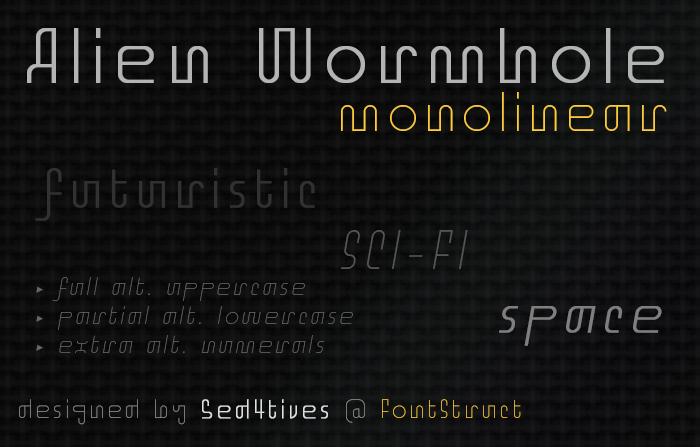
• ALIEN WORMHOLE - Monolinear Sci-Fi-inspired 'worm' typeface.
Most well known worm-type design probably is NASA's retired 'worm' logo (used from 1975 till 1992).
A sophisticated modernist rendering of the letters (N-A-S-A), done in a bold style letterform.
That being said, I should mention that this FontStruction wasn't "inspired by" or "based on" the original NASA logo though.
Small grid attempt at making sort of a experimental futuristic 'worm'-type design.
The letterforms for the most part are build from simplified basic geometry (rectangles/circular) except for a small number of symbols and punctuation that have diagonals.
It's experimental appearance is defined by the strikingly quirky counters that are awkwardly jutting out of the stems. To further boost it's awkwardness the letterforms have irregular width.
There is a full set of uppercase and partial lowercase glyph alternatives located in "Half Width Full Width" Unicode block to add slight stylistic variations.
Talking about this work: two typefaces seem to coexist in one (one more vertical and traditional and the other more innovative -a, b, d, h, m, etc-). But interestingly, they work together in their own peculiar way, producing a much more readable result than might be expected at first glance. Unfortunately, the glyphs that seem unrecognizable to me in their quirky design are K, k, and R, all IMHO. That must be the alien effect. ?
“ Unfortunately, the glyphs that seem unrecognizable to me in their quirky design are K, k, and R, all IMHO. That must be the alien effect.  ”
Yup, this work seems to be having an alien viral infection, symptoms are intense and fiercely disabling.
Their mothership's AI has been jailbreaking into our mainframe and replaced the system's default typeface with one of their own special 'character recognition-' compatible typefaces for easy auto-translation of latin based languages into their own native language.
So perhaps this is what a latin based type design possibly looks like if it was designed to be intelligible and  more user-friendly for extraterrestrials.
But what do we actually truly know? Last time I checked I was pretty sure I wasn't an alien, and for all we know we could be looking right at it and thinking nothing seem to look out of the ordinary. ?
I think for experimental styles such as this it shouldn't be all too much of an issue, since it wasn't initially aimed at providing best possible ergonomic performance. But formost with stylistic appearance in mind. ?
I wonder if a variable font of all styles, when finished, will be possible?
@BMW: Not solely with FontStruct, this requires the use of an external type-tool. But that is certainly something I am working towards for my multi-style type families.
A thing you got to keep in mind is that this requires some very specific parameters that need to be setup right for it to handle everything correctly.
Another thing one got to consider is that this can be highly impractical to utilize easily, since most type or design tools not give users access to the various features. In those situations it's probably best to have each style as separate font file and simply merge style attributes with Open-Type features.
The forthcoming bold version kind of took a leap into the unknown and also includes partial 'Greek/Coptic' and 'Cyrillic'. This happend somewhat accidentally and was never really meant to implement multilingual support to the font. Initially I simply used these Unicode blocks as temporarily locations to store random glyph alternatives. But without realizing it I eventually caught myself halfway into the process of including the remaining missing glyphs too these blocks as well (oops).
Can you attempt a version of this cool font in which each character can be written in a single stroke? Given your production speed, I think you can do it overnight. ;-)
@thalamic: I think I can try of course, only Aa-Zz I guess, right?